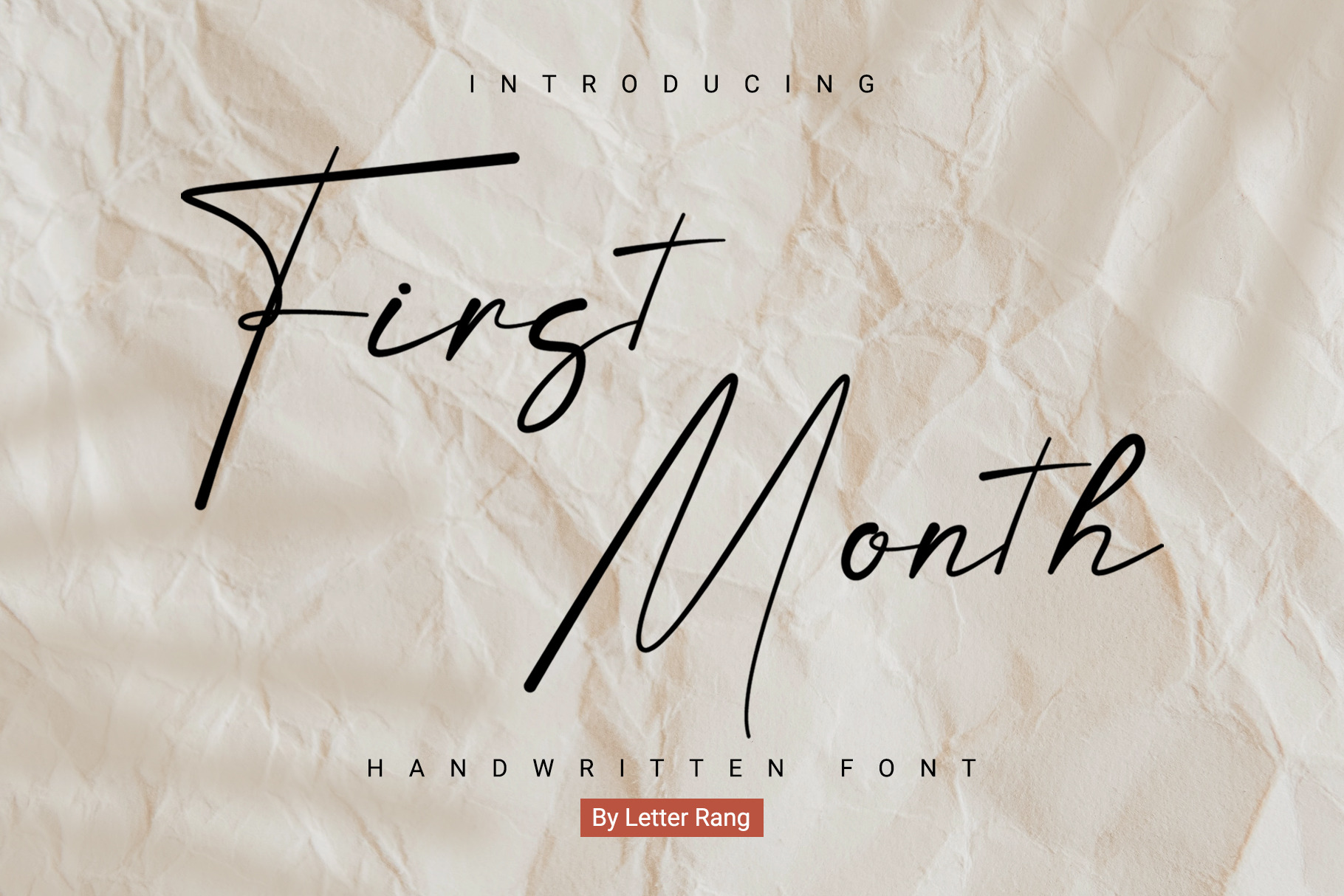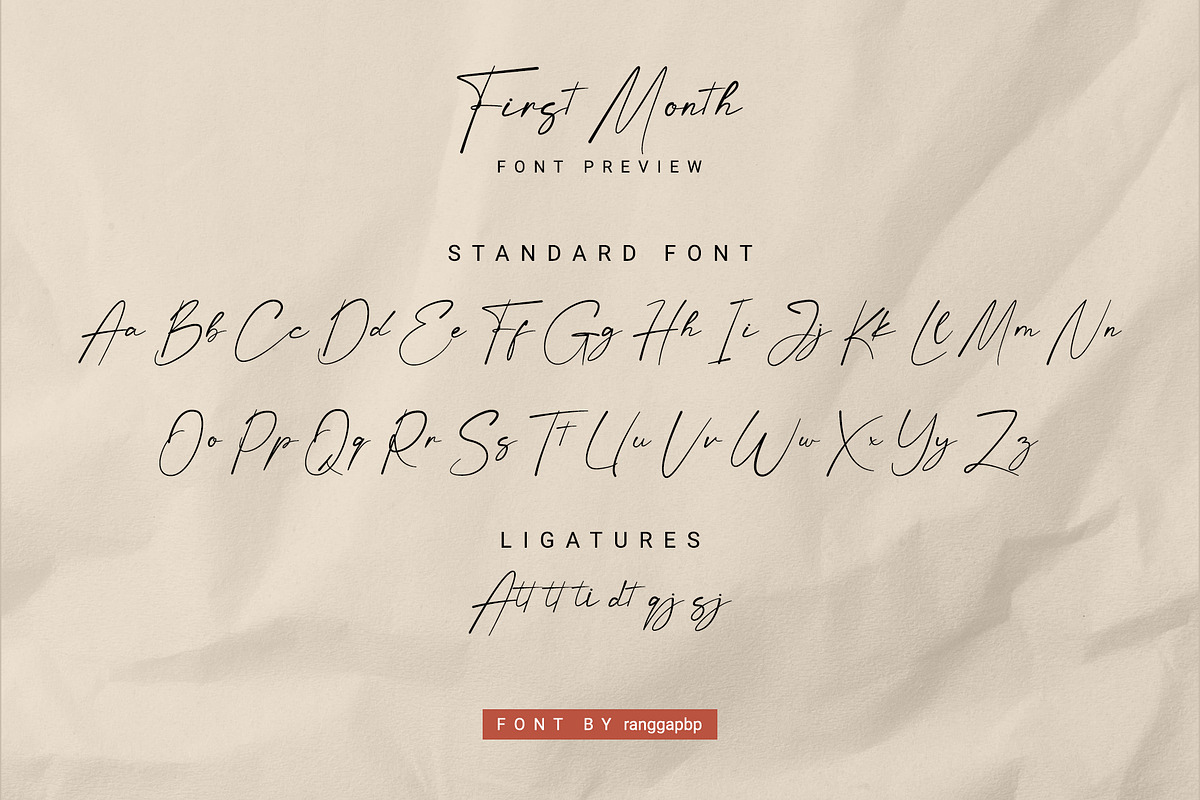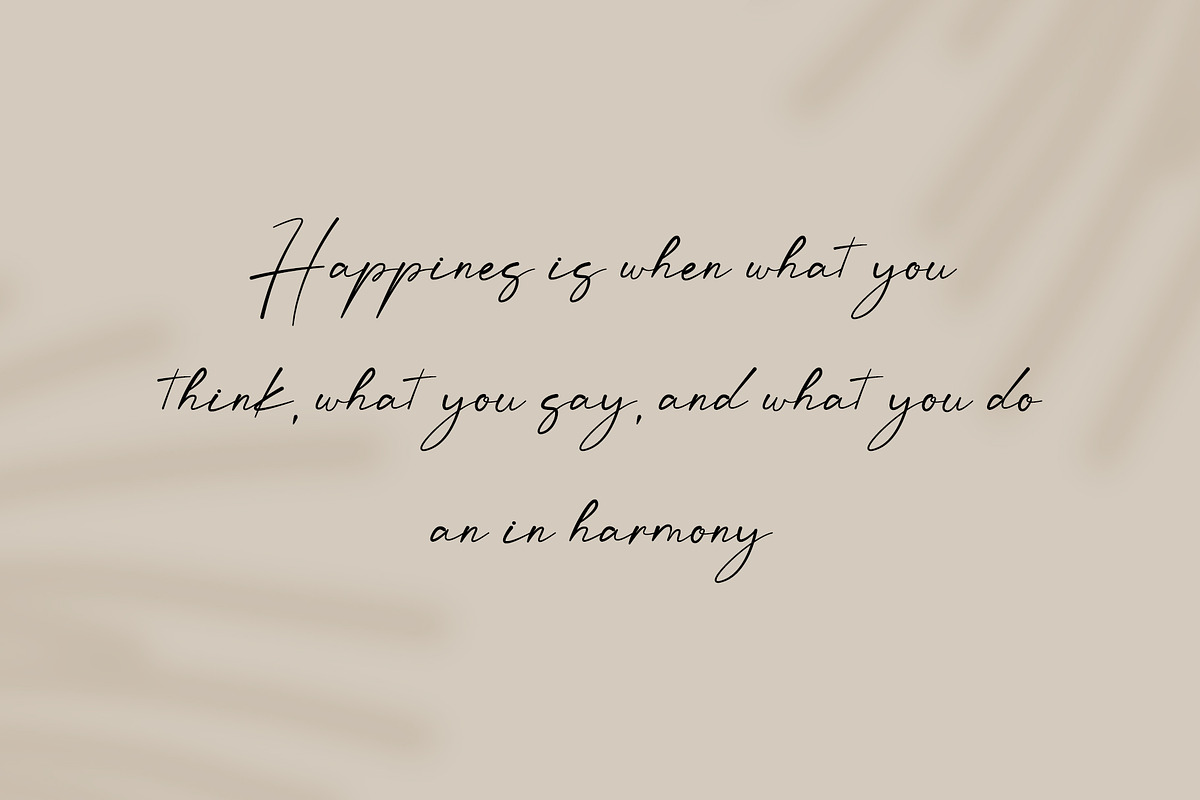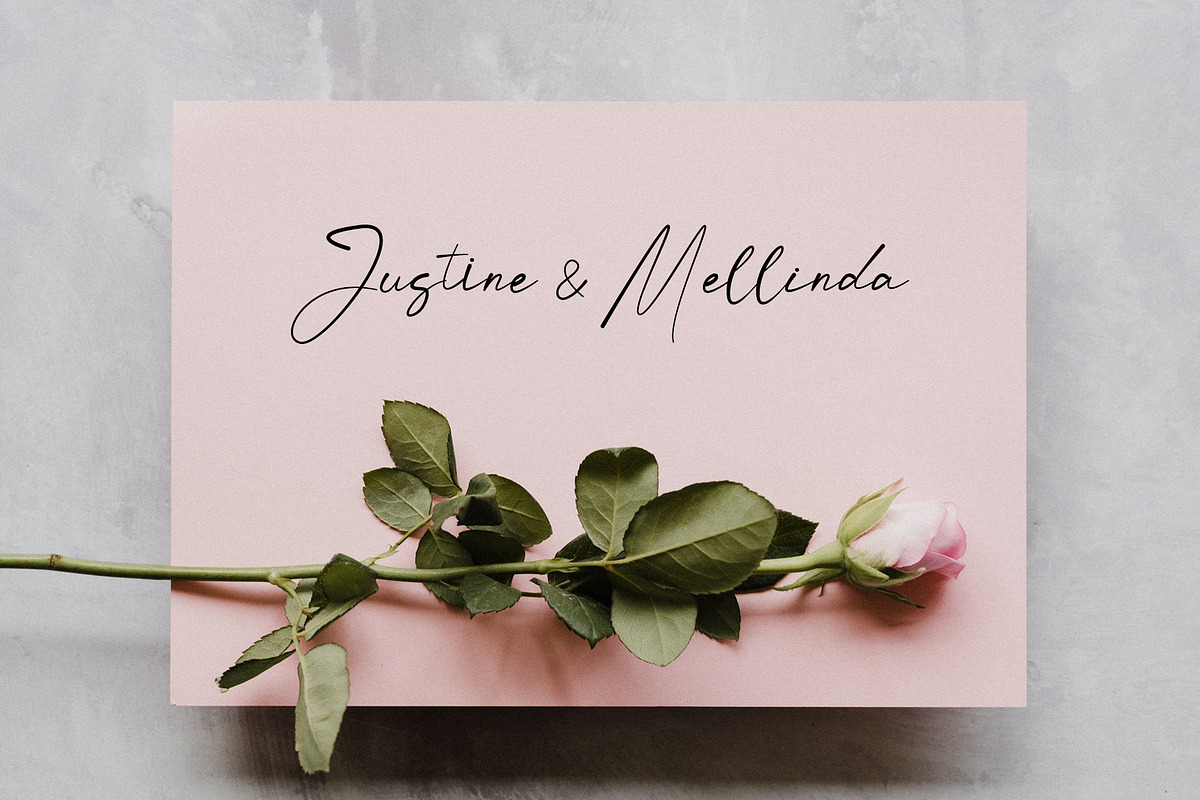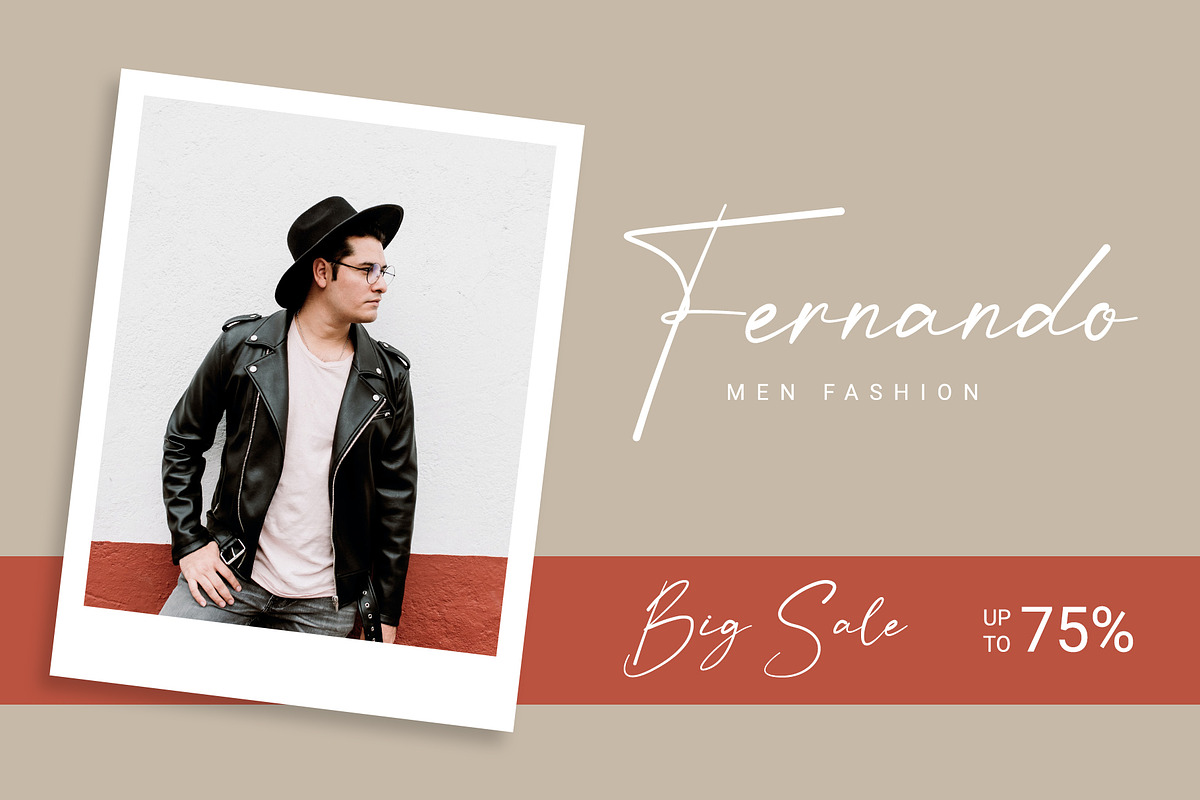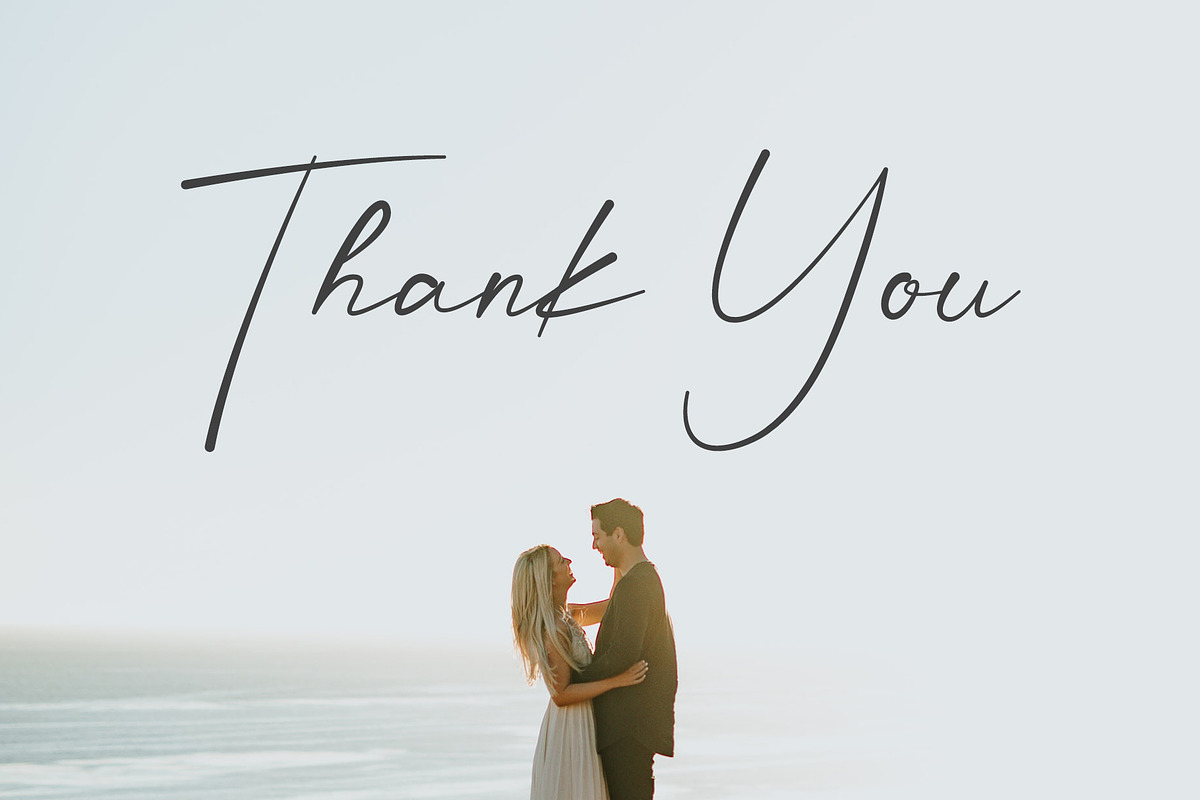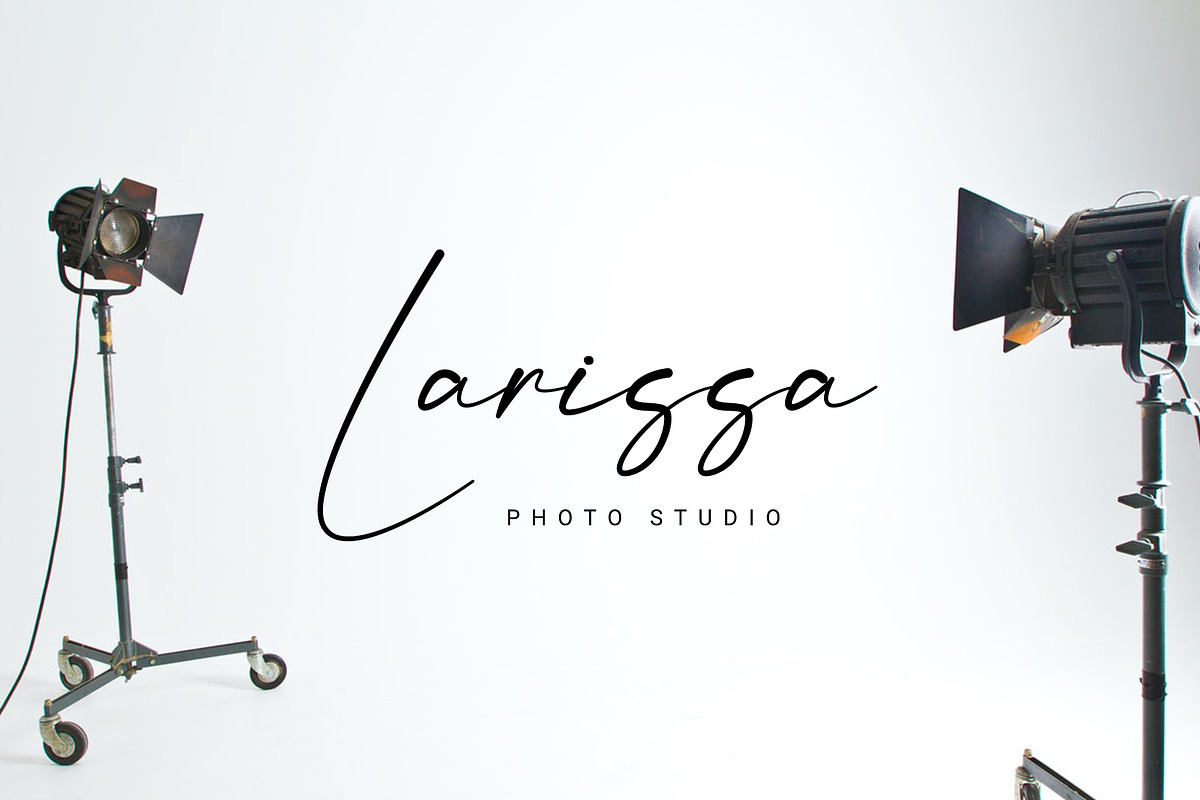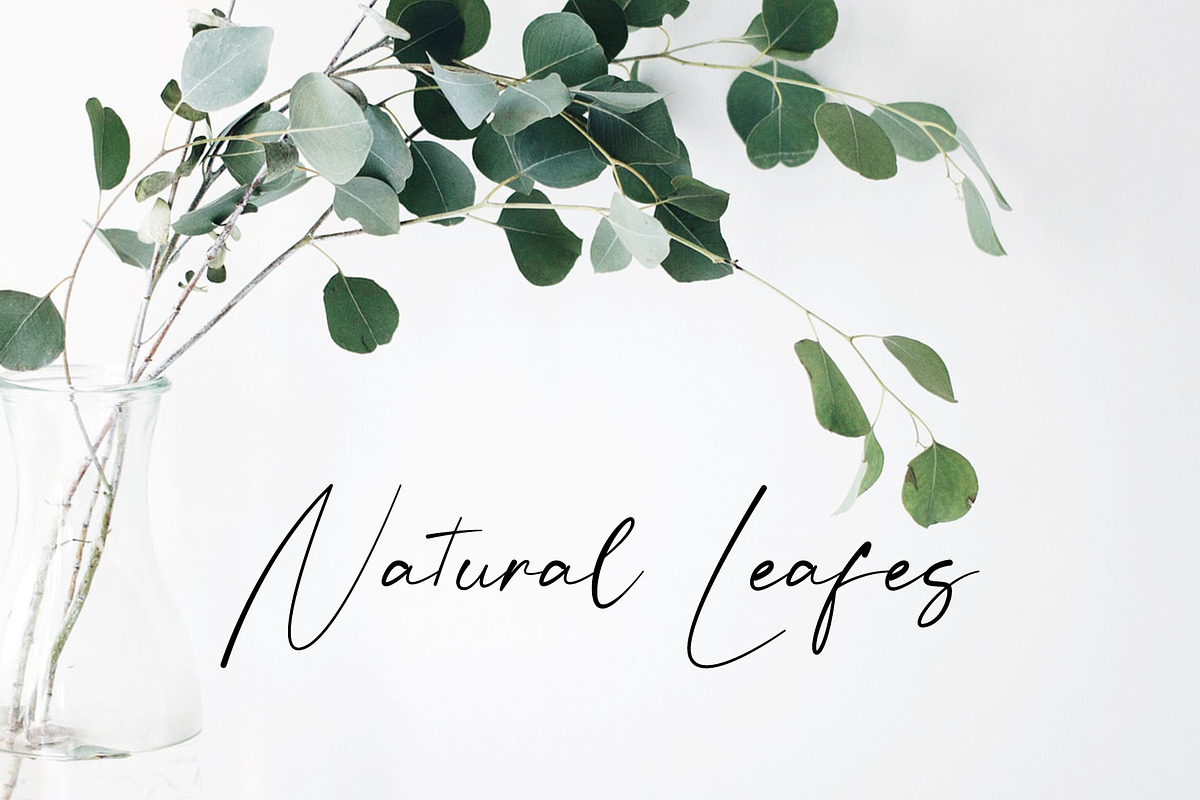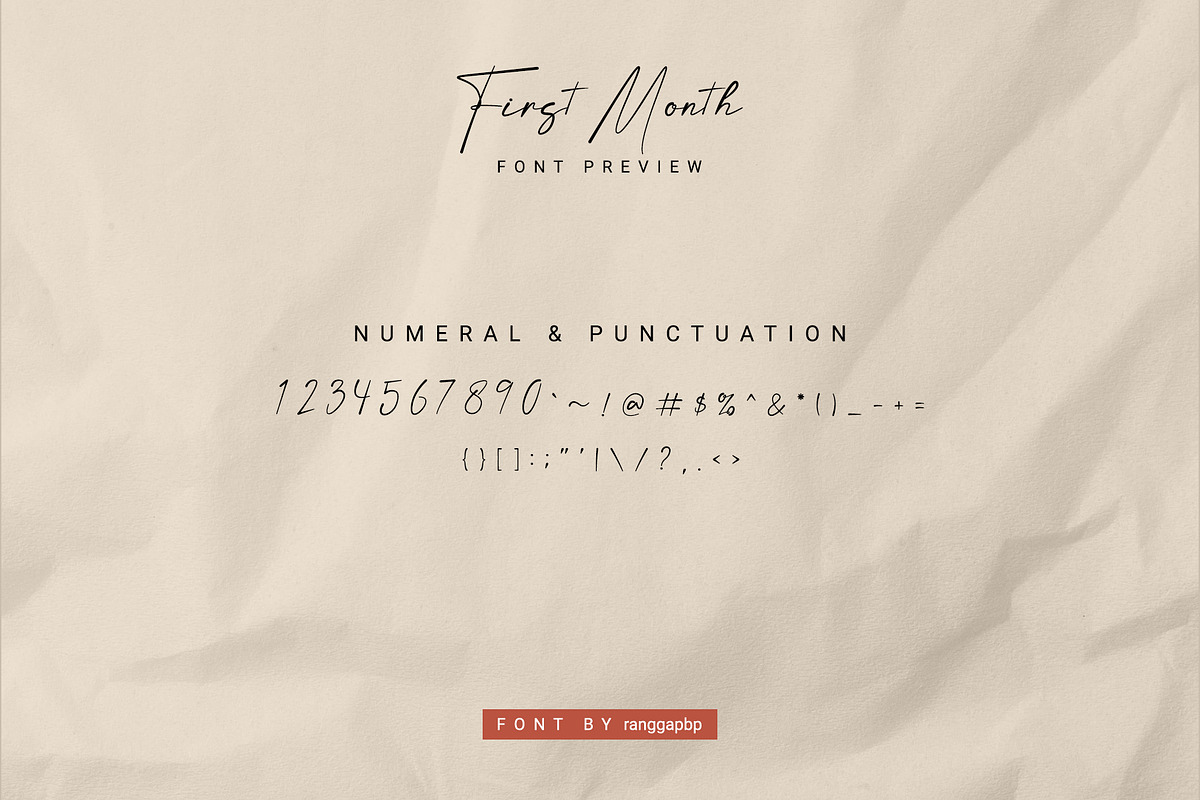
First Month | handwritten font
First Month
First Month is a modern style pen style font. This font is perfect for branding, art notes, invitation cards, wedding cards, greeting cards and for quotes.
- unique ligatures